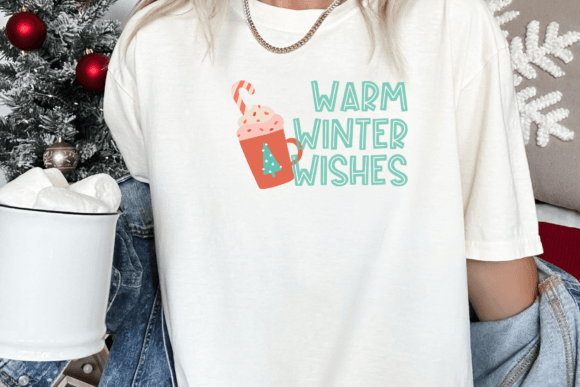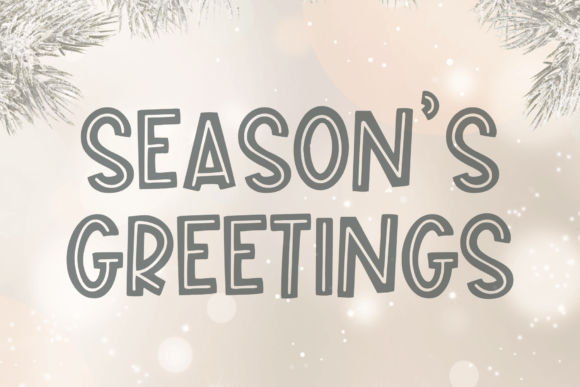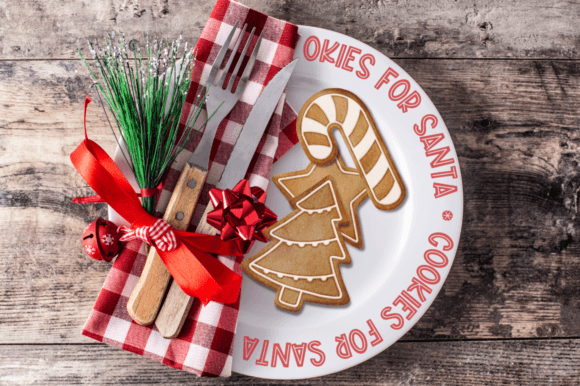
Frosted Cookies Font
Frosted Cookies is a cute and friendly handwritten uppercase display font. This typeface is perfect for fun logos, greeting cards, t-shirt designs, stickers, social media posts, crafts, and more!